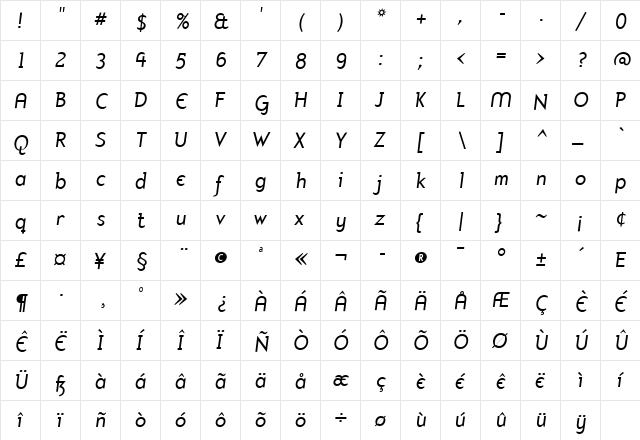
Mercury Italic
Design Context for Mercury Typeface
Mercury offers clean, dependable letterforms without strong stylistic allegiance, making it a practical choice for designers who need flexibility. The dynamic lean of this cut emphasises speed and emphasis in any layout.
Pro Tip: Use Mercury for emphasis, pull quotes, and subheadings where its slanted energy can add rhythm to the layout.